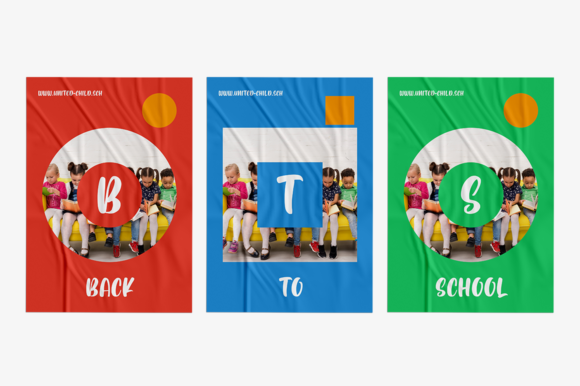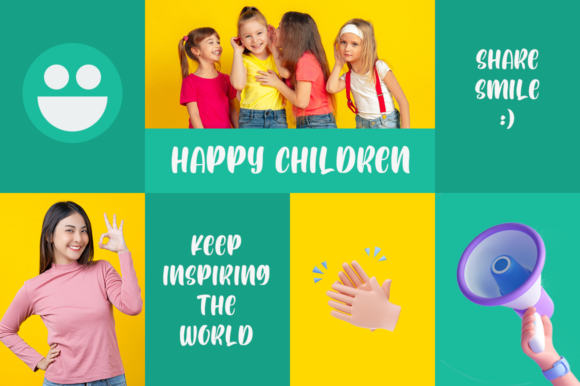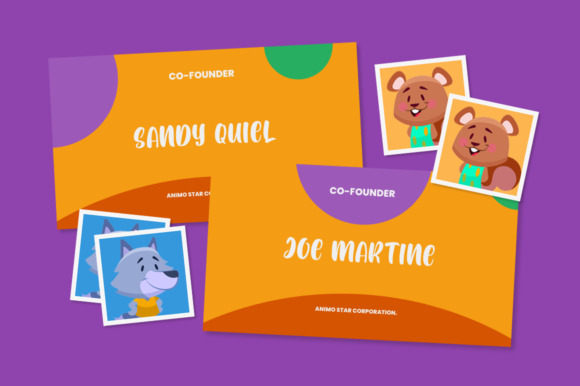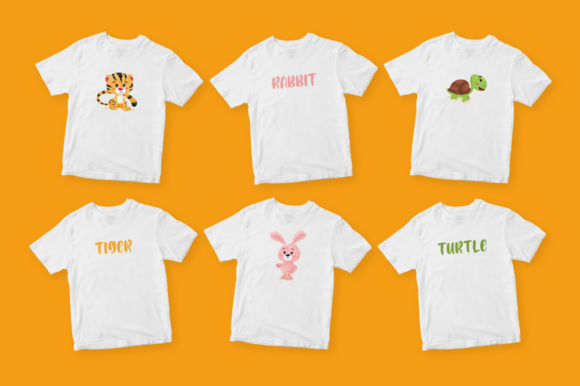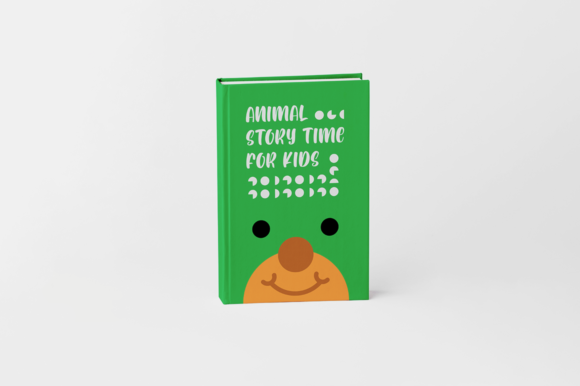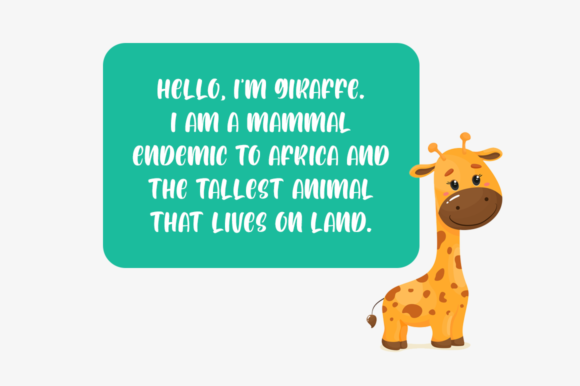
Introduction to Funny Bold Font
You know that moment when you’re brainstorming ideas for a creative project, and suddenly, a spark of inspiration hits you? It’s like the whole room lights up, and you can’t wait to bring your vision to life. For many designers, that spark often comes from the right font – one that sets the tone for a project’s personality and style. Enter the Funny Bold Font, a delightful display font that’s perfect for adding a dash of whimsy to your designs.
Whether you’re working on a digital project, crafting greeting cards, or creating presentations, the Funny Bold Font is a valuable design resource that’s sure to elevate your work. Its fun, relaxed, and friendly vibe makes it an ideal choice for designers who want to add a touch of humor and personality to their creative projects. With its transparent background and high-quality design, this font is a free download that’s worth having in your design arsenal.
Key Features of Funny Bold Font
- High-quality, bold font design ideal for creative projects and presentations.
- Comes in a transparent background format for easy integration with any design resource.
- Features a bold, eye-catching design perfect for adding humor and personality to your creative project.
- Designed with a high resolution of 300 DPI for optimal print quality.
- Includes a range of sizes from 12pt to 72pt for flexible use in various design applications.
- Perfect for designers and artists looking for a unique and bold font to add to their design resource library.
Honest Review: Funny Bold Font
As a designer, I’m always on the lookout for new and exciting design resources to elevate my creative projects. Recently, I had the chance to test out the Funny Bold Font, and I must say, it’s a game-changer. ✨
- High-quality design: The font is crisp, clean, and well-designed, making it perfect for any creative project.
- Easy to use: With a transparent background, it’s easy to place over any image or design element.
While the Funny Bold Font is a great addition to any design toolbox, there are a few limitations to keep in mind: ⚠️
- Limited character set: The font only includes uppercase and lowercase letters, as well as a few special characters.
- No italics or bold variations: While the font is bold, it doesn’t have any italic or bold variations, which may limit its use in certain situations.
Overall, I’m impressed with the Funny Bold Font and would highly recommend it to designers looking for a high-quality, free design resource. Its versatility and ease of use make it a great addition to any creative project.
Tips for Getting the Most Out of Funny Bold Font
Use the font in combination with other design elements, such as images or shapes, to create a visually appealing design. Experiment with different font combinations to find the perfect match for your project. Don’t be afraid to try new things and push the boundaries of what’s possible with Funny Bold Font.
Common Use Cases for Funny Bold Font
Funny Bold Font is perfect for creating humorous designs, such as memes or social media graphics. It’s also great for adding a playful touch to children’s party invitations or other creative projects. With its bold and eye-catching nature, Funny Bold Font is sure to make your designs stand out.
Alternatives to Funny Bold Font
Comic Sans MS is a sans-serif font designed by Vincent Connare in 1994. It’s a popular choice for creative projects and is often used in children’s books, magazines, and websites. This font is ideal for adding a playful touch to a design without being too overwhelming.
Comic Sans MS is similar to Funny Bold Font in its playful nature, but it’s more versatile and can be used in a wider range of design projects. However, it may not be suitable for professional or formal designs due to its informal appearance.
Yes, the Funny Bold Font has a transparent background, making it easy to layer over images or use as a design element in your creative project. This feature allows for a high-quality, professional-looking result.